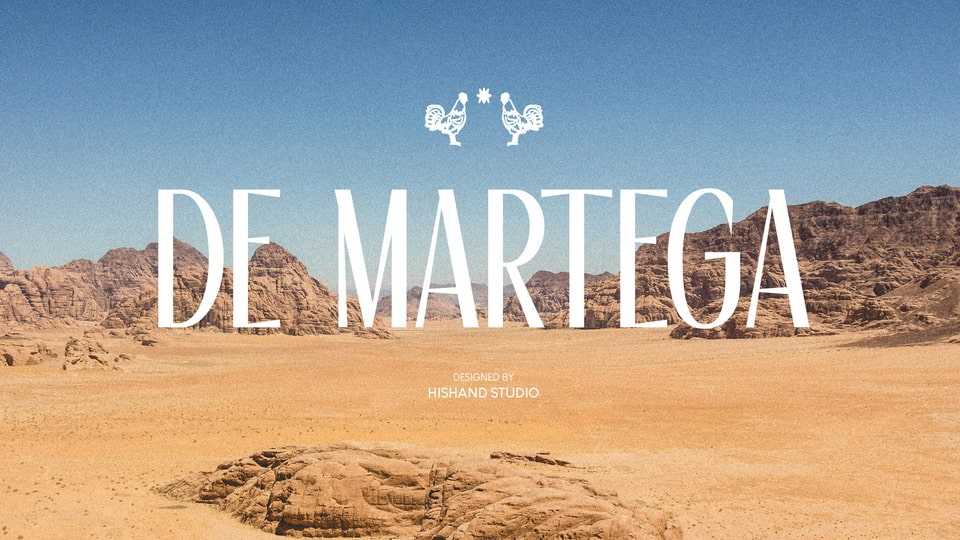
Download De Martega font, a refined serif typeface with tall, elegant letterforms and a confident presence. The contrast between its bold verticals and delicate curves gives it a sophisticated yet approachable look.